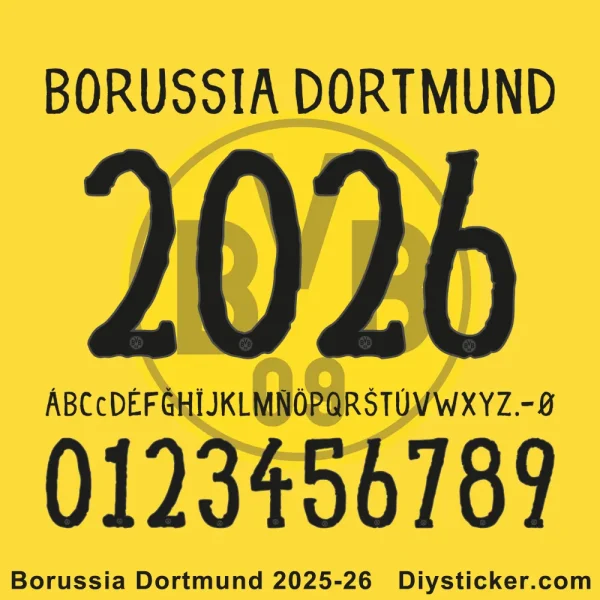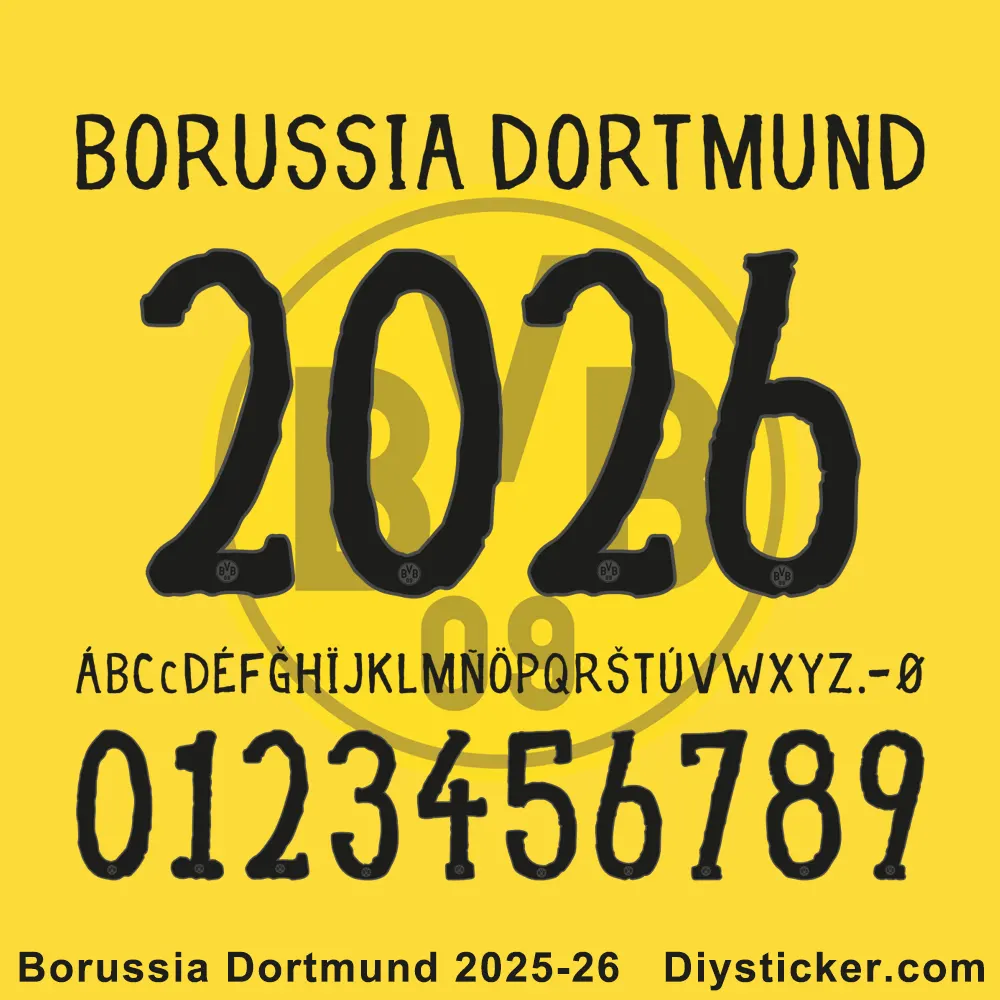
Dortmund 2025-26 Font Download
Get the authentic look of Borussia Dortmund with the official Dortmund 2025-26 Font Download. This comprehensive package includes TTF, OTF, AI, CDR, and PDF vector files, offering unparalleled versatility for all your design needs. Perfect for creating custom jerseys, fan art, posters, and more, this font delivers the iconic BVB style for the upcoming season.